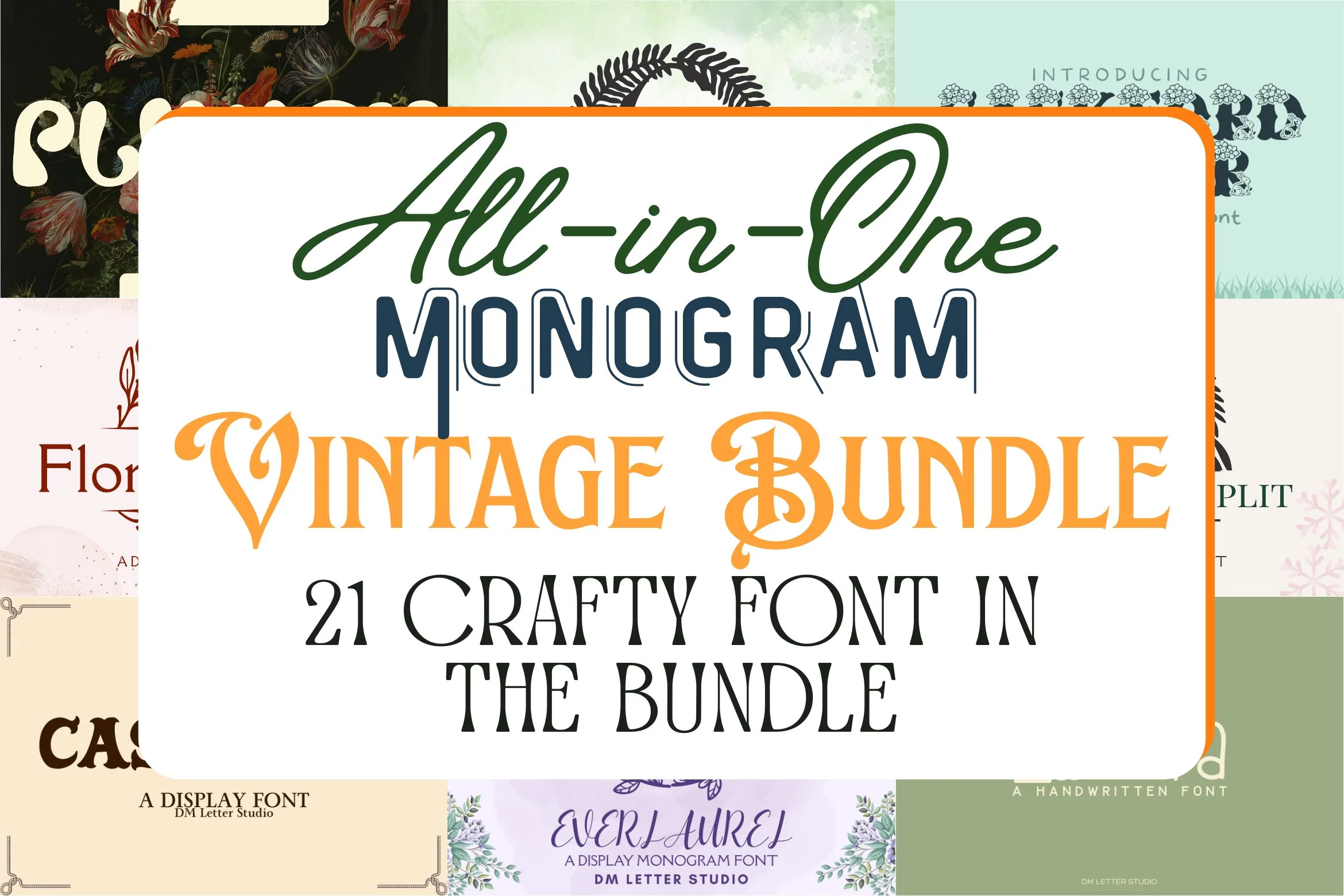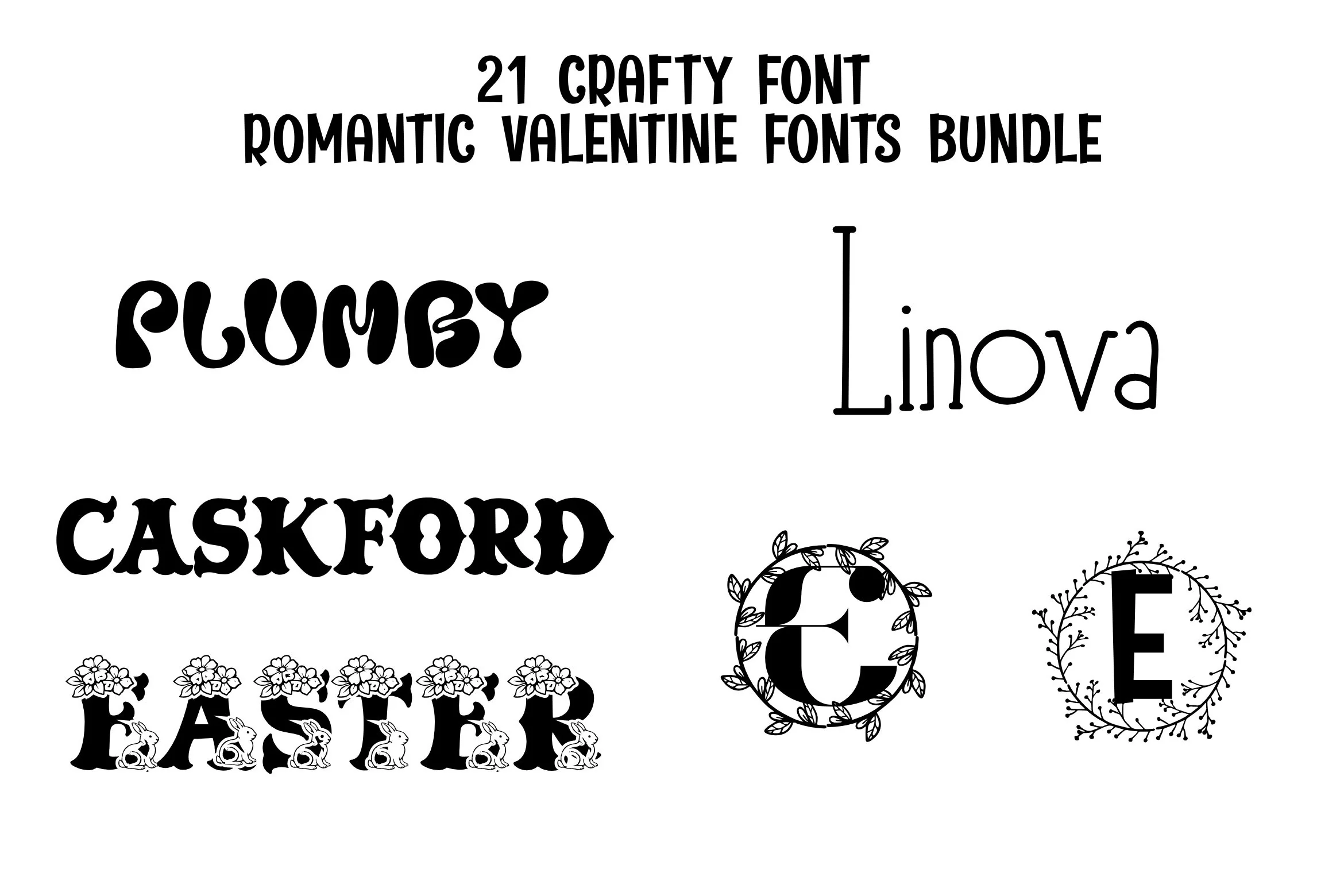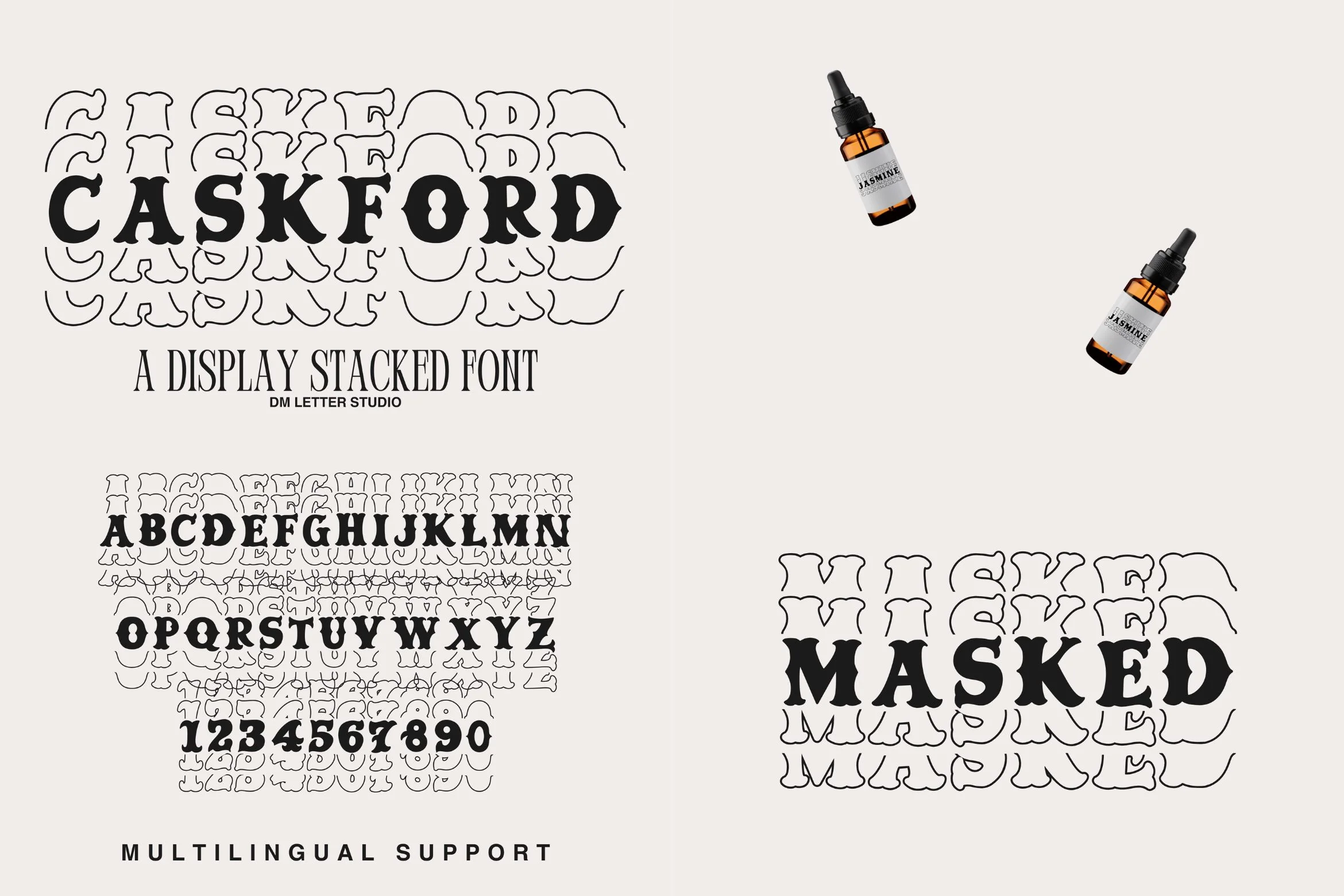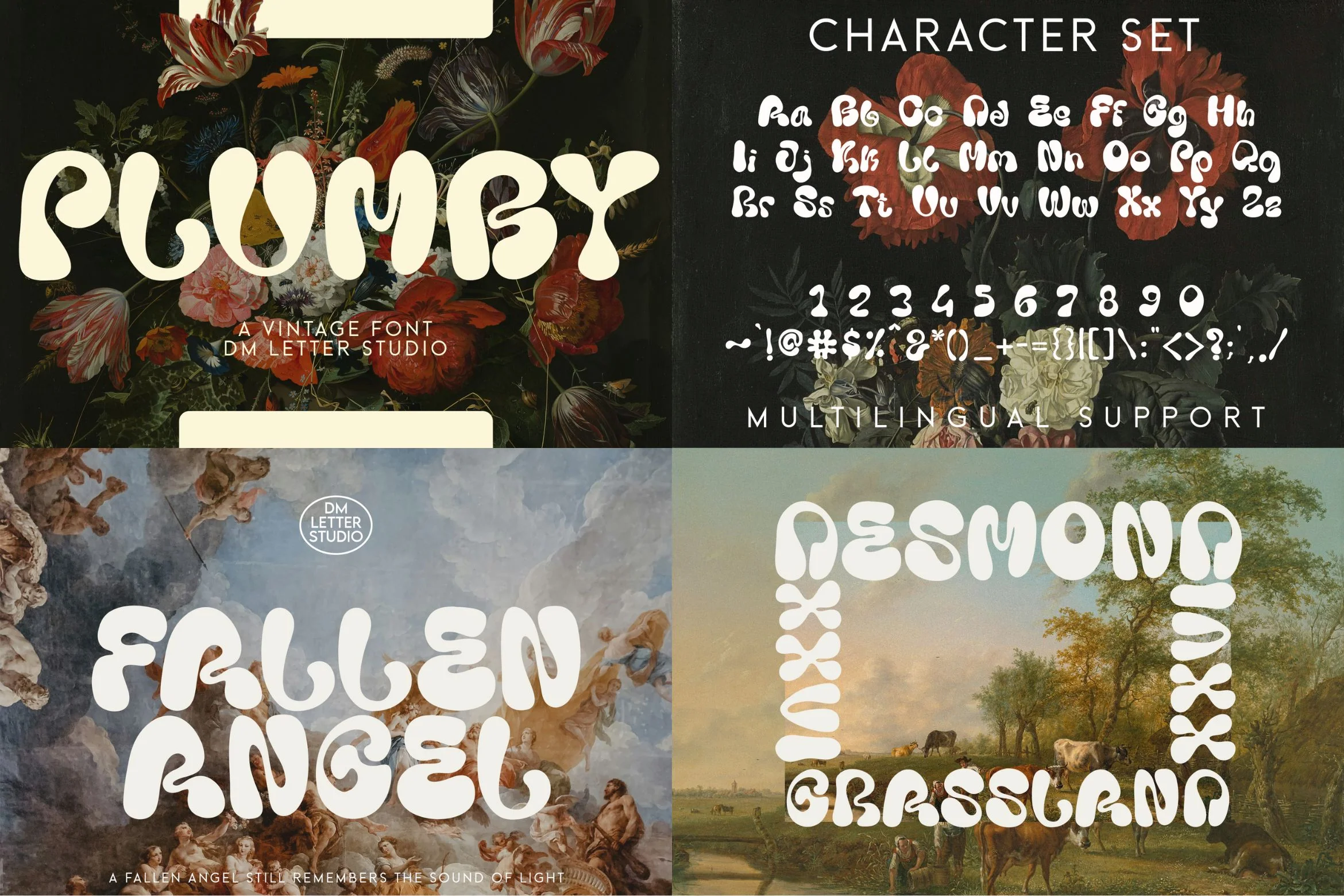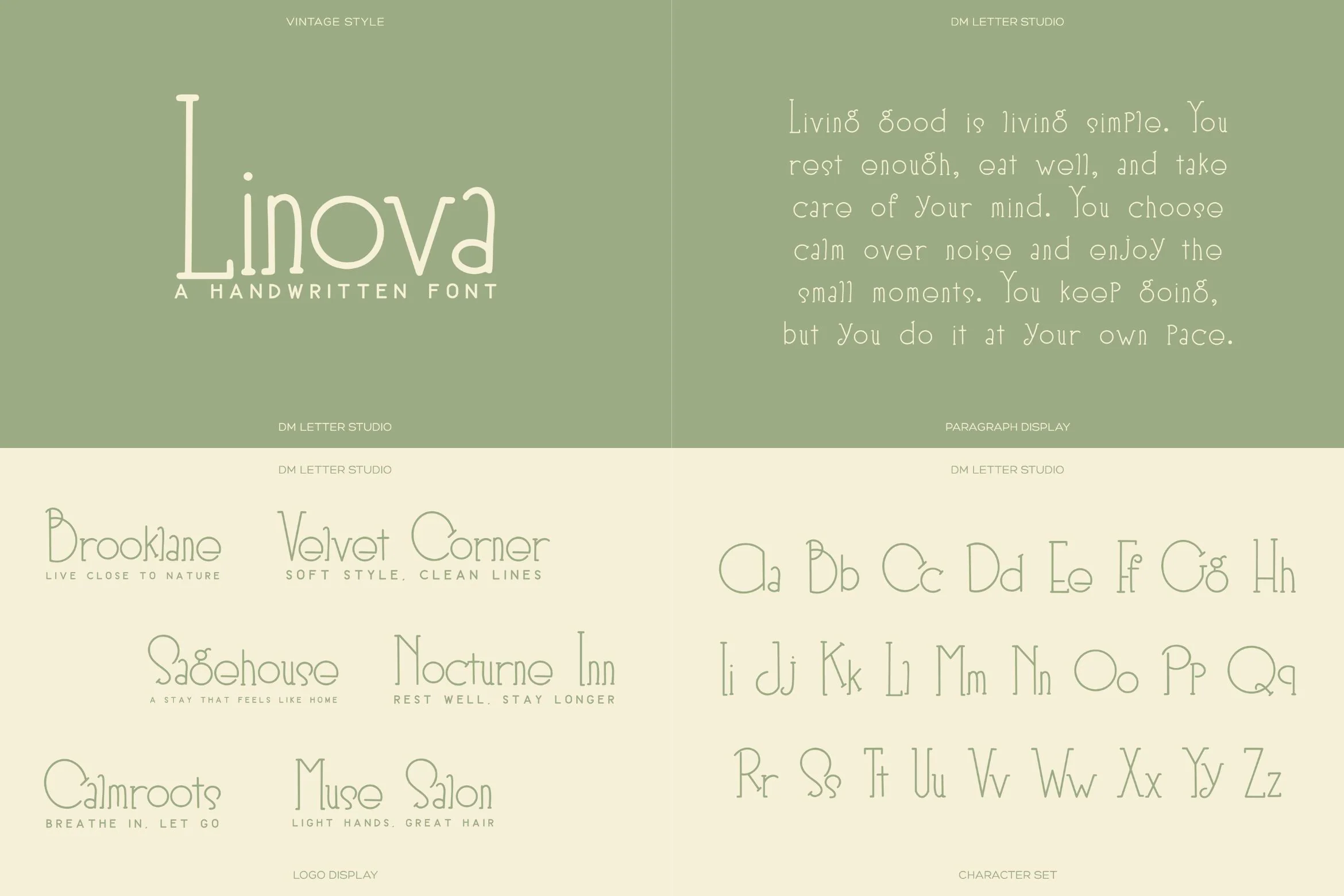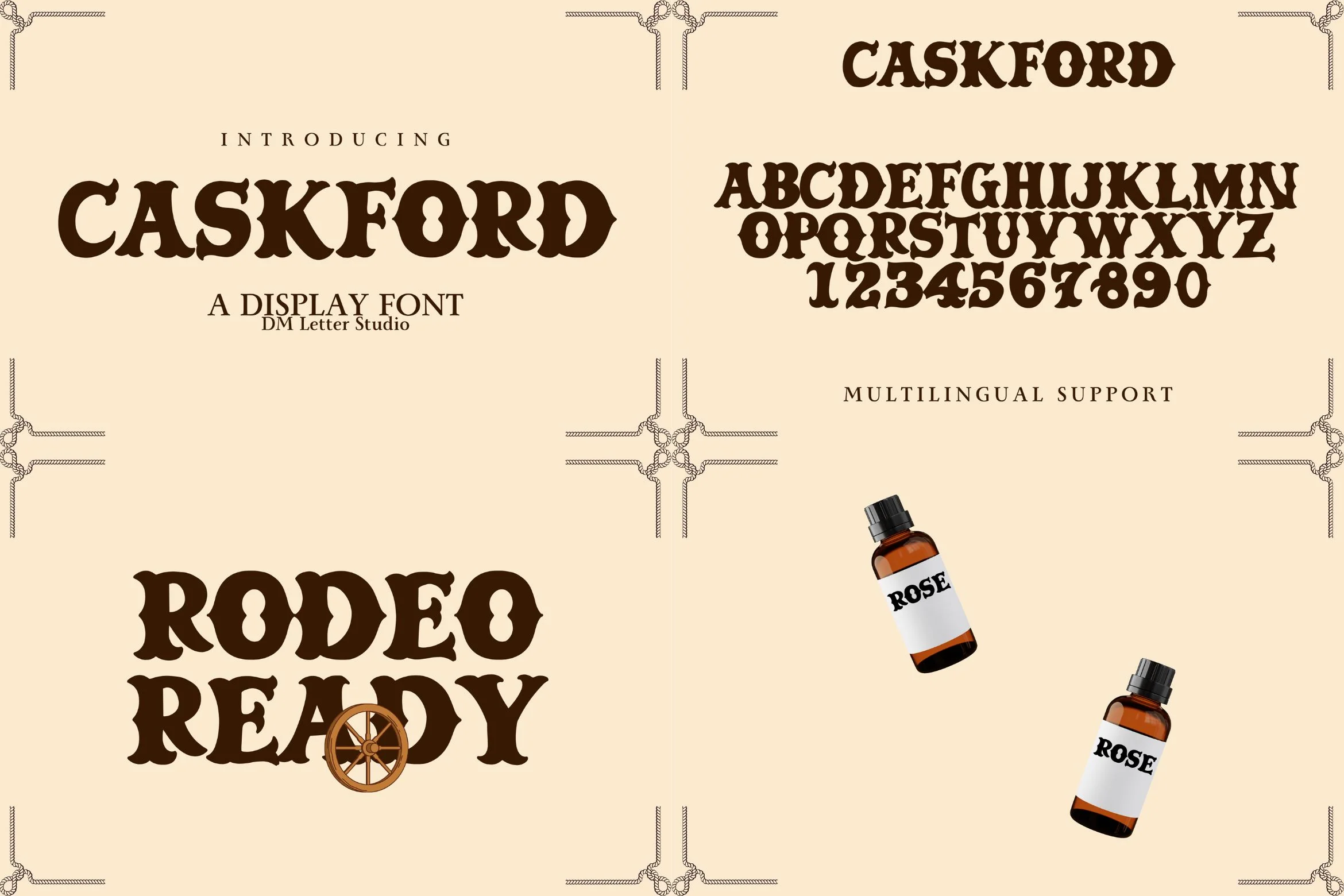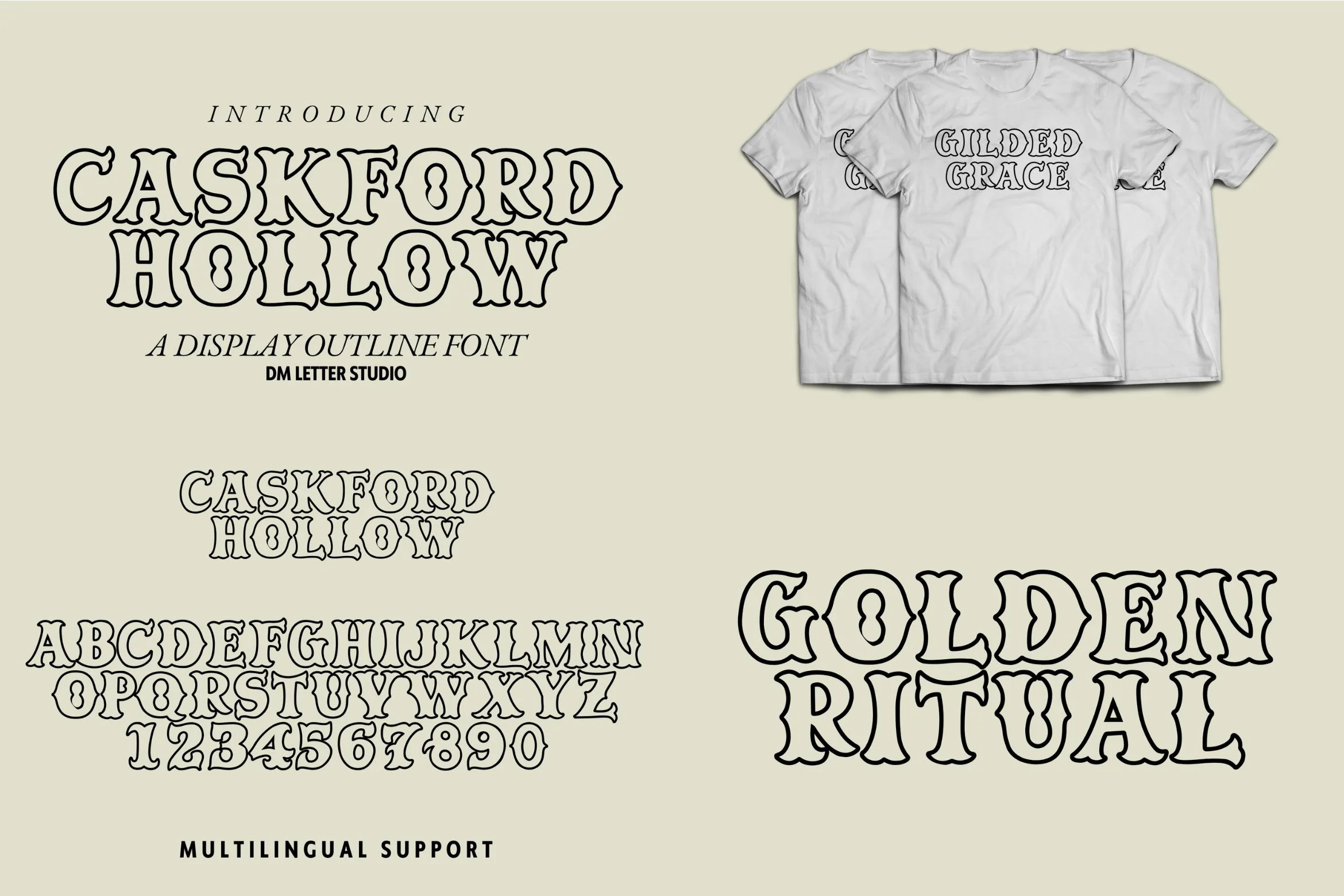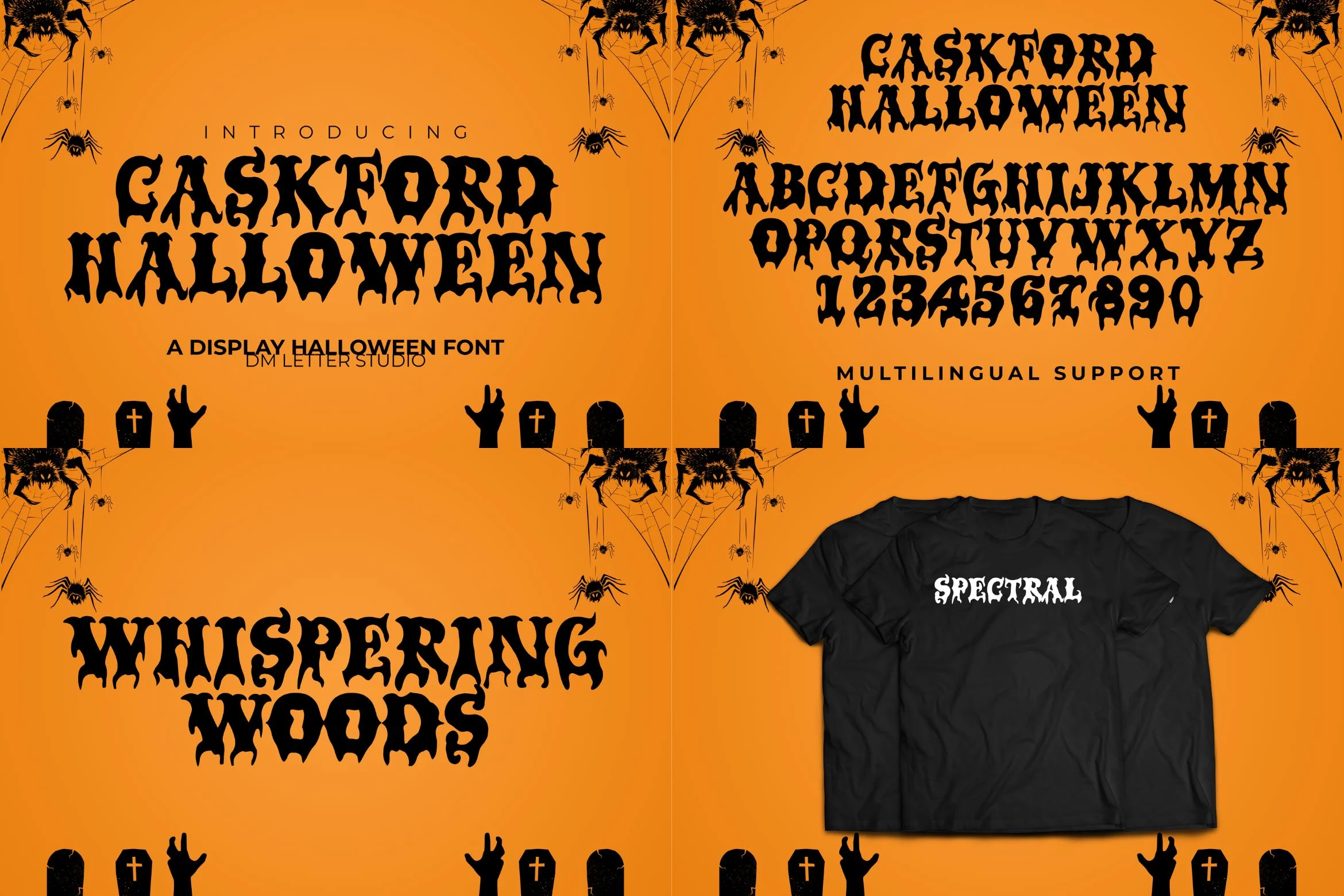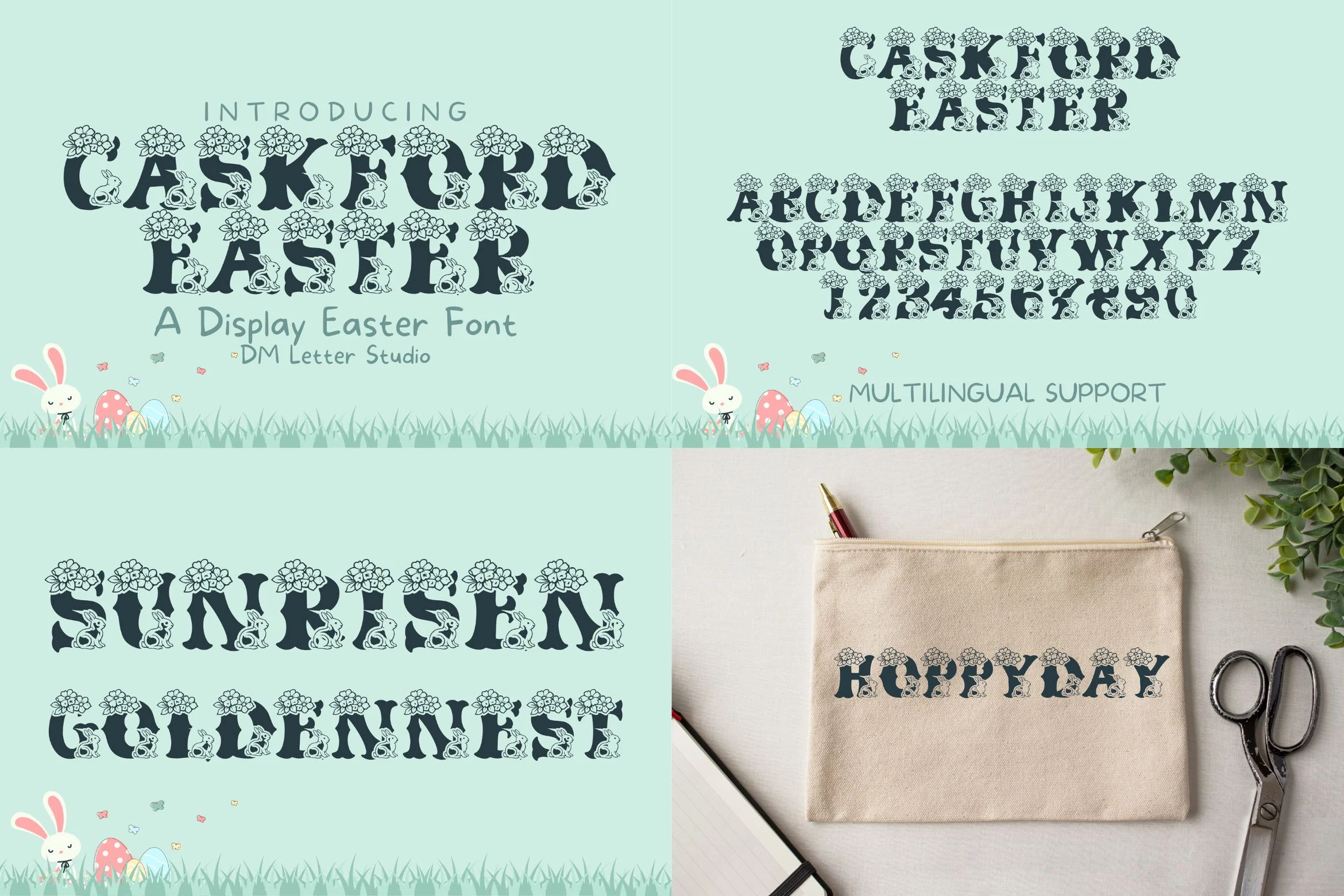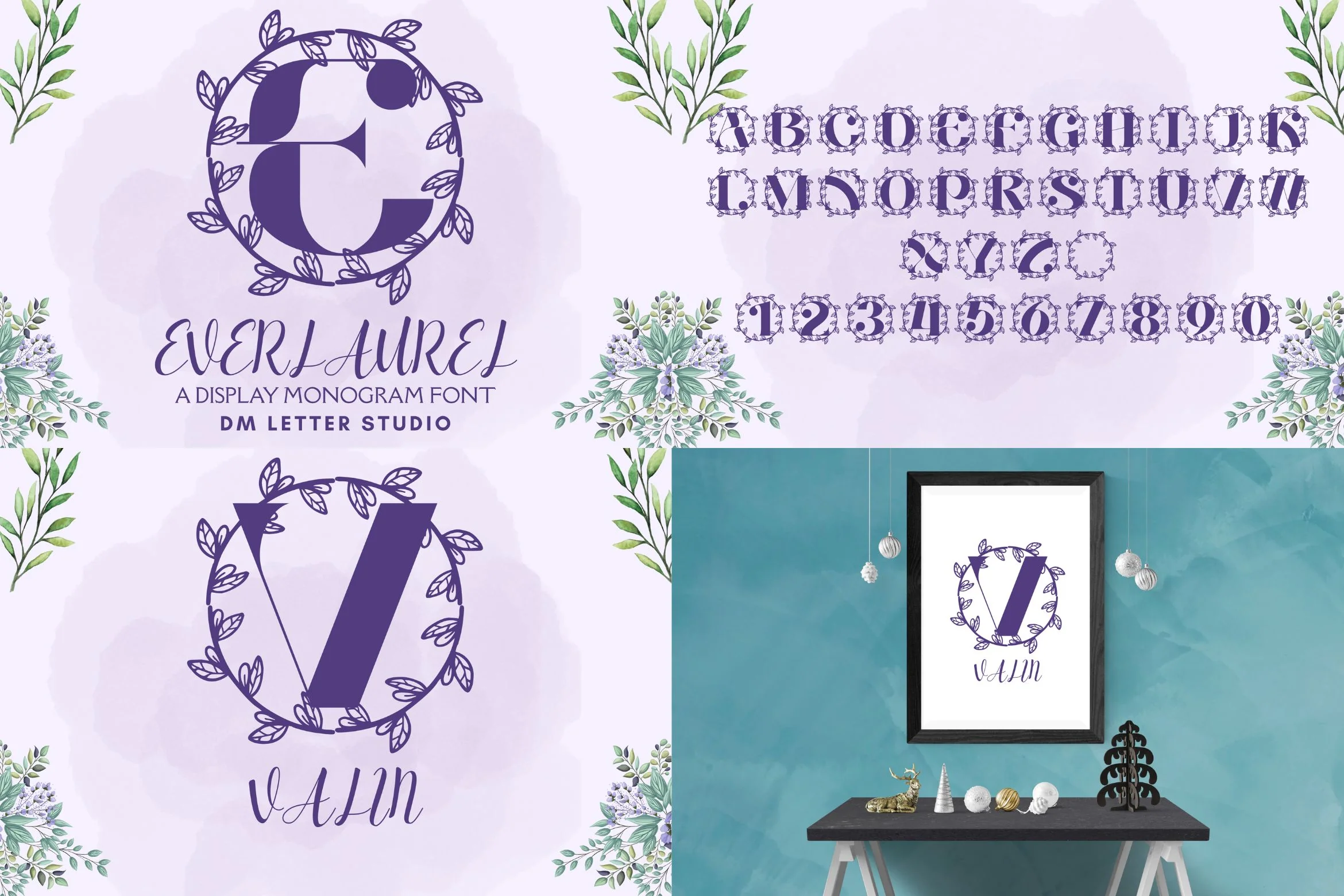
All-in-One Monogram & Vintage Font Bundle
All-in-One Monogram & Vintage Font Bundle (Seasonal Styles Included)
If you want one bundle that covers logos, labels, and seasonal projects without hunting for more fonts, this is it. This collection blends laurel and floral monogram fonts with vintage favorites that work beautifully for branding, packaging, signage, and social content. You get both standard monograms and split monograms, plus bonus vintage styles for Easter, Halloween, and more.
What’s inside this bundle
Monogram + Split Monogram Fonts
- Everlaurel Monogram + Everlaurel Split Monogram
- Floravine Monogram + Floravine Split Monogram
- Greyl Monogram + Greyl Split Monogram
- Laurelienne Monogram + Laurelienne Split Monogram
- Laurentis Monogram + Laurentis Split Monogram
- Laurion Monogram + Laurion Split Monogram
- Laurisia Monogram + Laurisia Split Monogram
Vintage Bonus Fonts
- Plumby
- Linova
- Caskford
- Caskford Easter
- Caskford Halloween
- Caskford Hollow
- Caskford Stacked
Why does this bundle sell for real projects
- Monogram-ready branding: Crests, initials, and badge-style logos in minutes.
- Split monograms included: Perfect for names, short words, and clean personalization.
- Vintage range: From classic serif vibes to bold display looks for packaging and posters.
- Seasonal styles included: Easy switch-ups for Easter promos, Halloween drops, and themed designs.
Perfect for
- Boutique and small business branding
- Wedding logos, invitations, and favor tags
- Product labels, packaging, and sticker designs
- Shirts, hats, tote bags, and merch
- Seasonal promos (Easter, Halloween, holiday campaigns)
- Social media graphics and YouTube thumbnails
Quick tips for the best results
- Pair a split monogram with a vintage font for a clean logo system.
- Use Caskford Stacked for bold headlines, then add a wreath monogram as the mark.
- Keep initials simple (1–3 letters) for a premium monogram look.